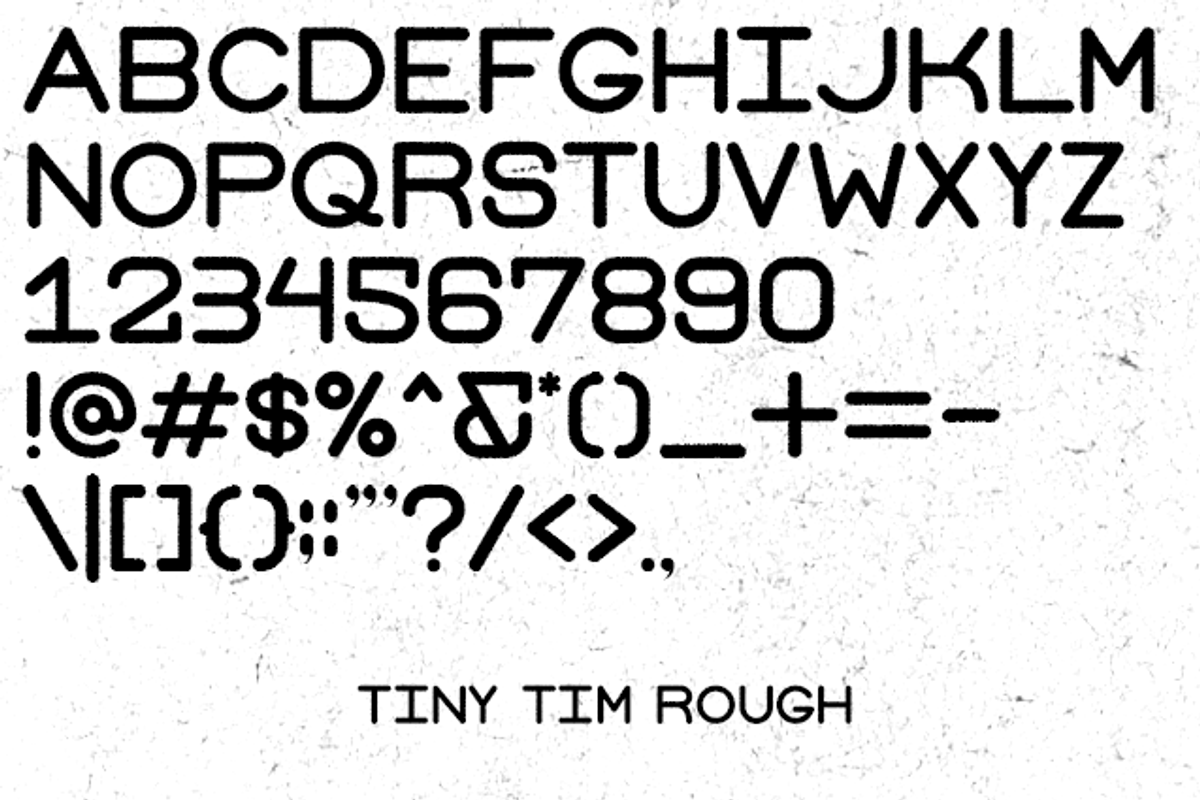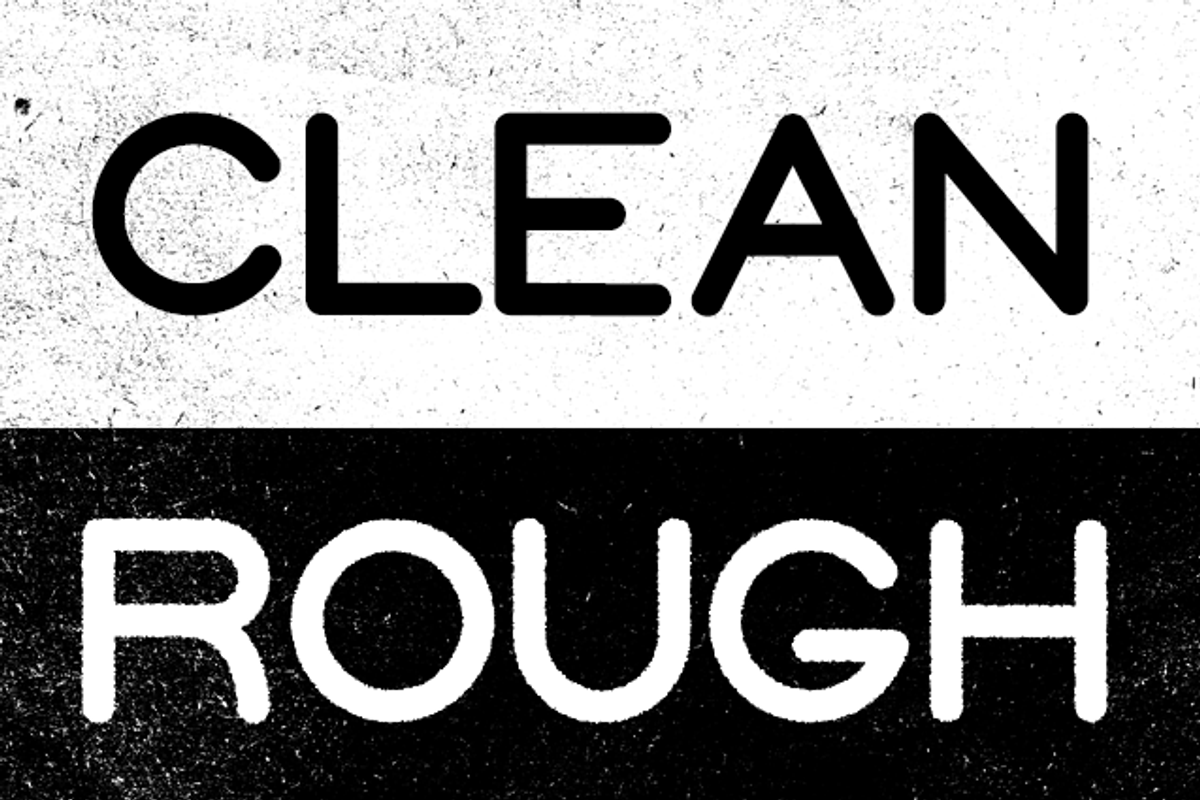
Tiny Tim Font Family
Tiny Tim Font Family by Andrew Hochradel is a font selected for branding, posters, packaging, typography.
Why Tiny Tim Font Family is worth a look
Tiny Tim Font Family by Andrew Hochradel fits naturally into Branding, posters, packaging, typography.